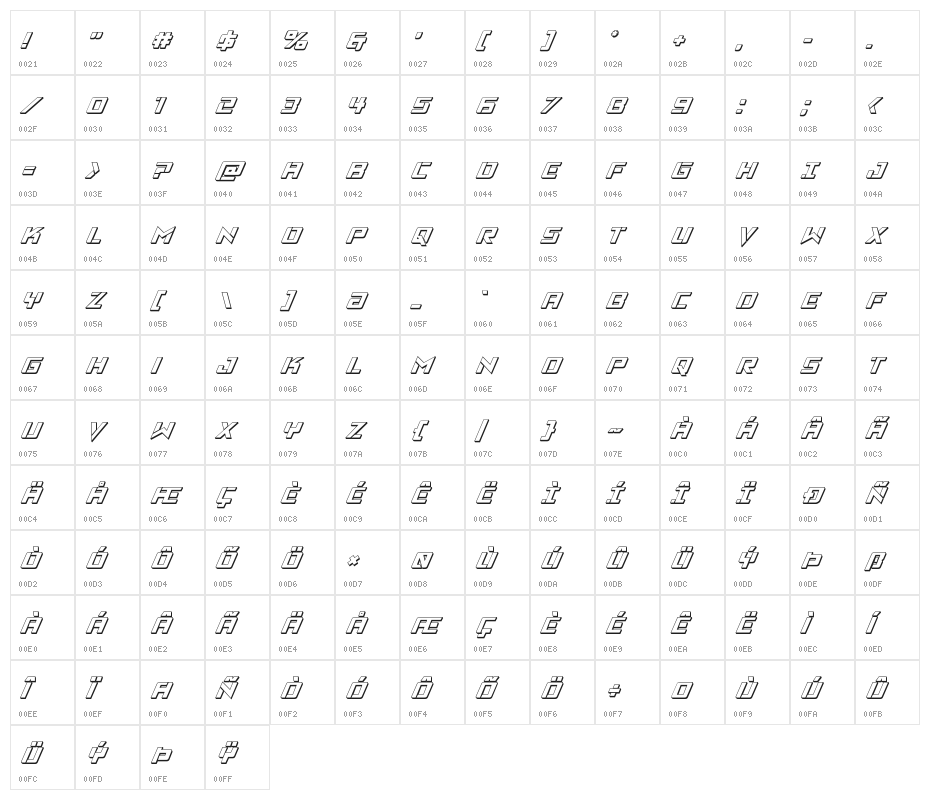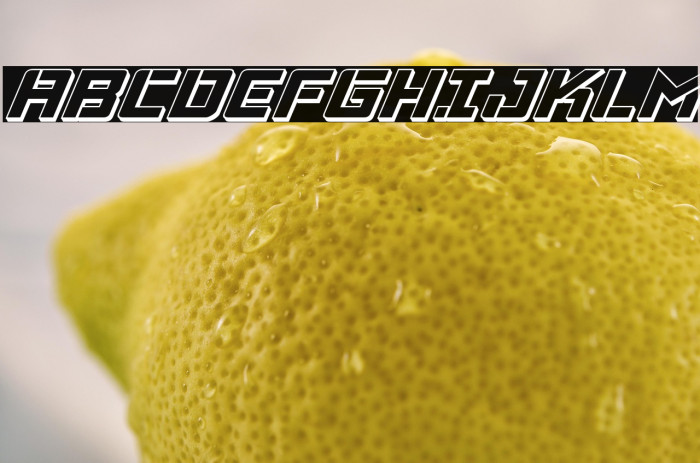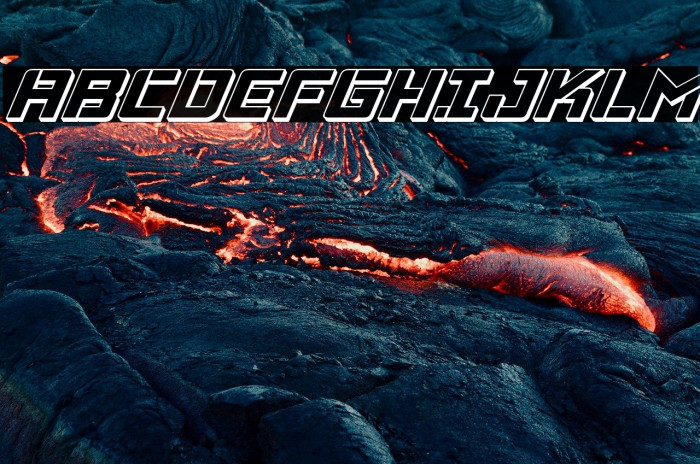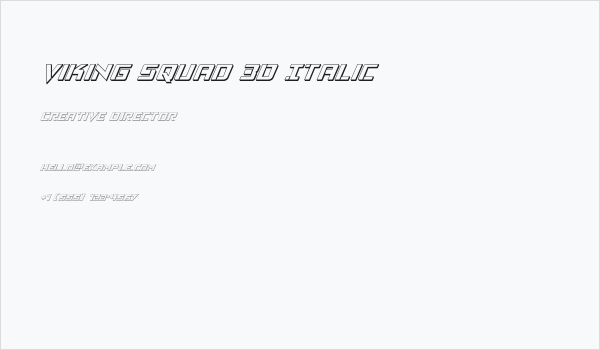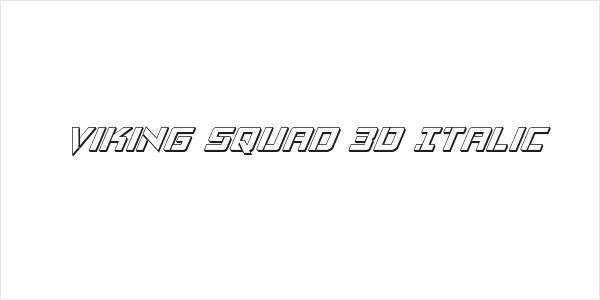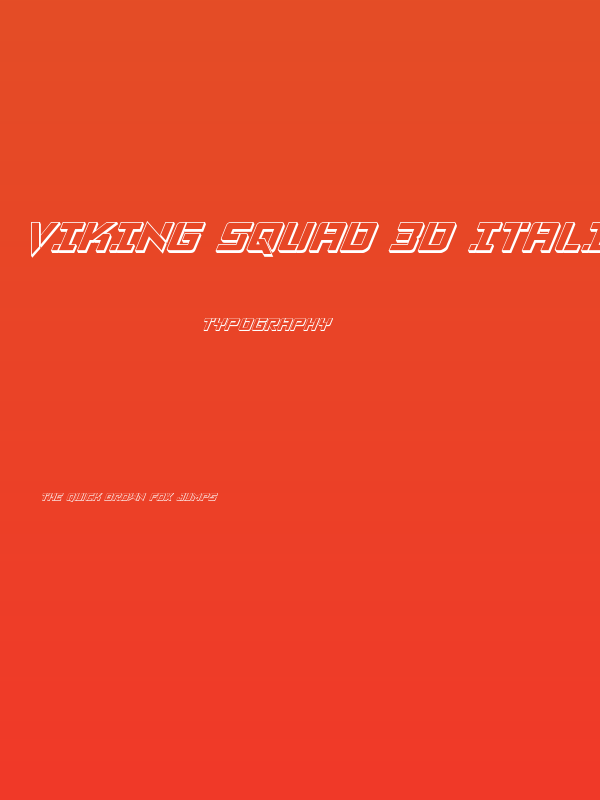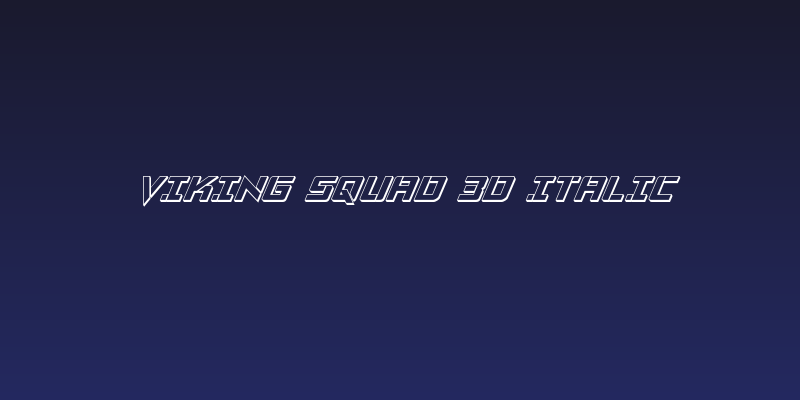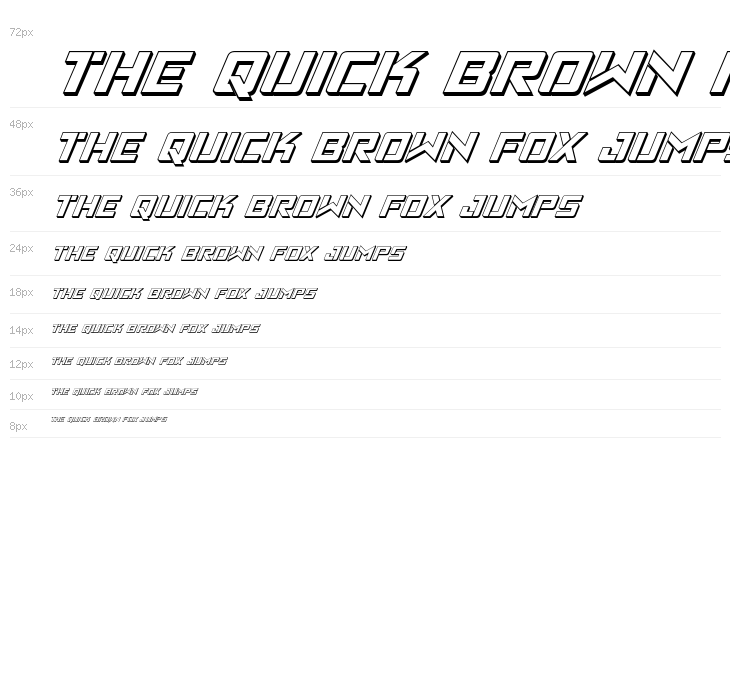
Viking Squad 3D Italic Font
Viking Squad 3D Italic Description
This font features a bold, three-dimensional design with an italic slant, giving it a dynamic and futuristic appearance. The characters are outlined, creating a shadow effect that enhances the 3D look. The angular and geometric shapes of the letters contribute to a modern and edgy style, making it stand out. The uppercase and lowercase letters maintain a consistent design, with sharp edges and a uniform stroke width. The numerals and special characters follow the same stylistic approach, ensuring cohesion across all elements.
| Proposed Projects | Ideal for video game titles, tech branding, futuristic posters, and digital art projects. |